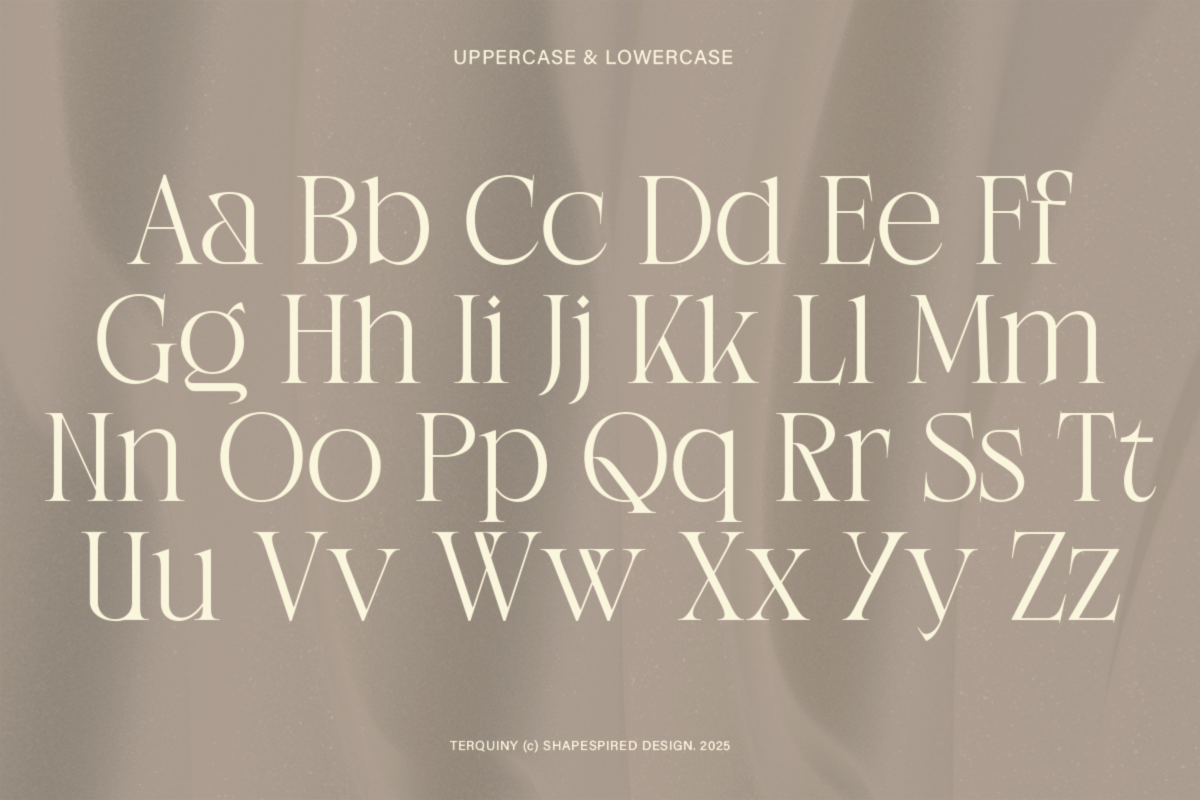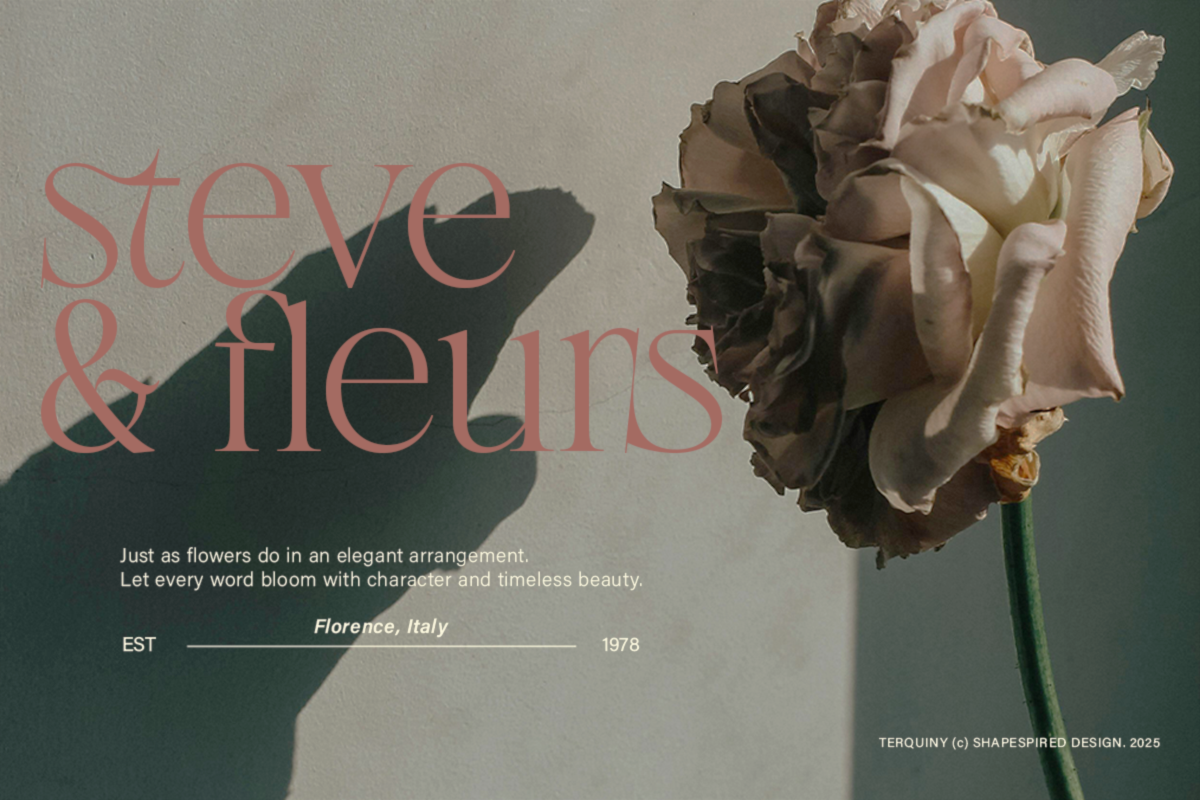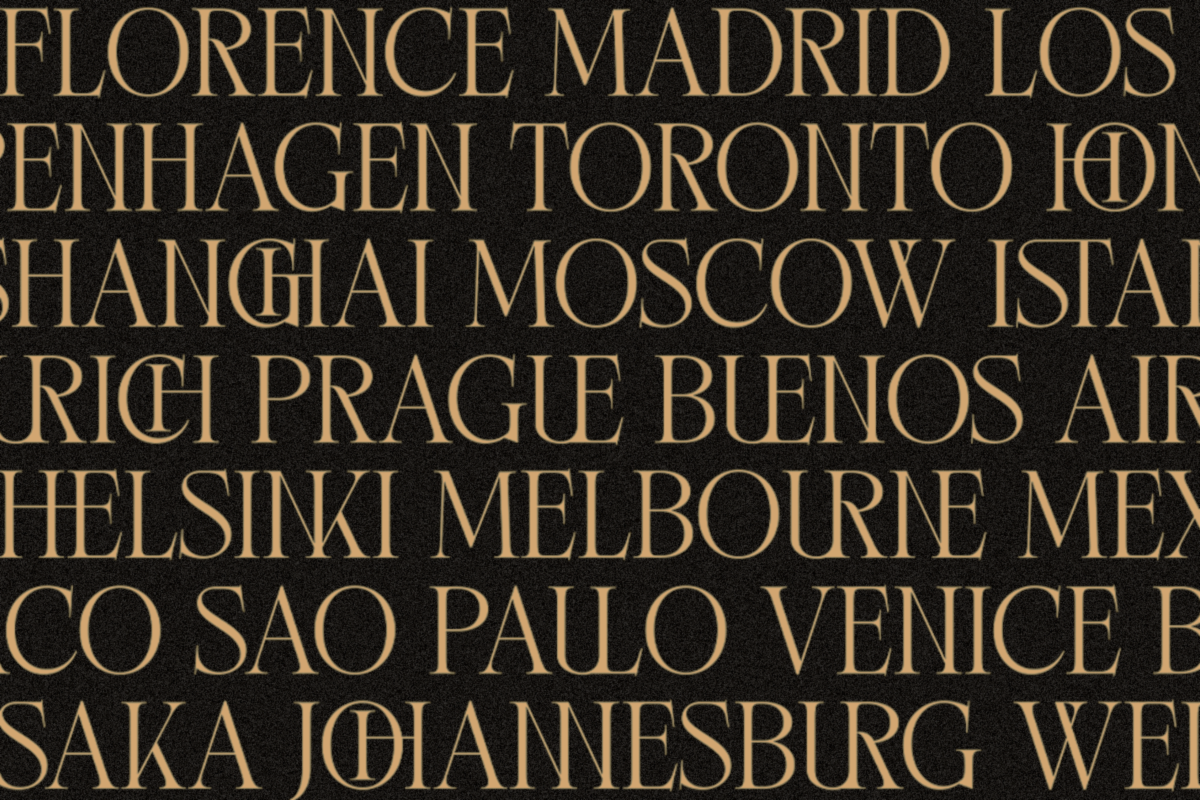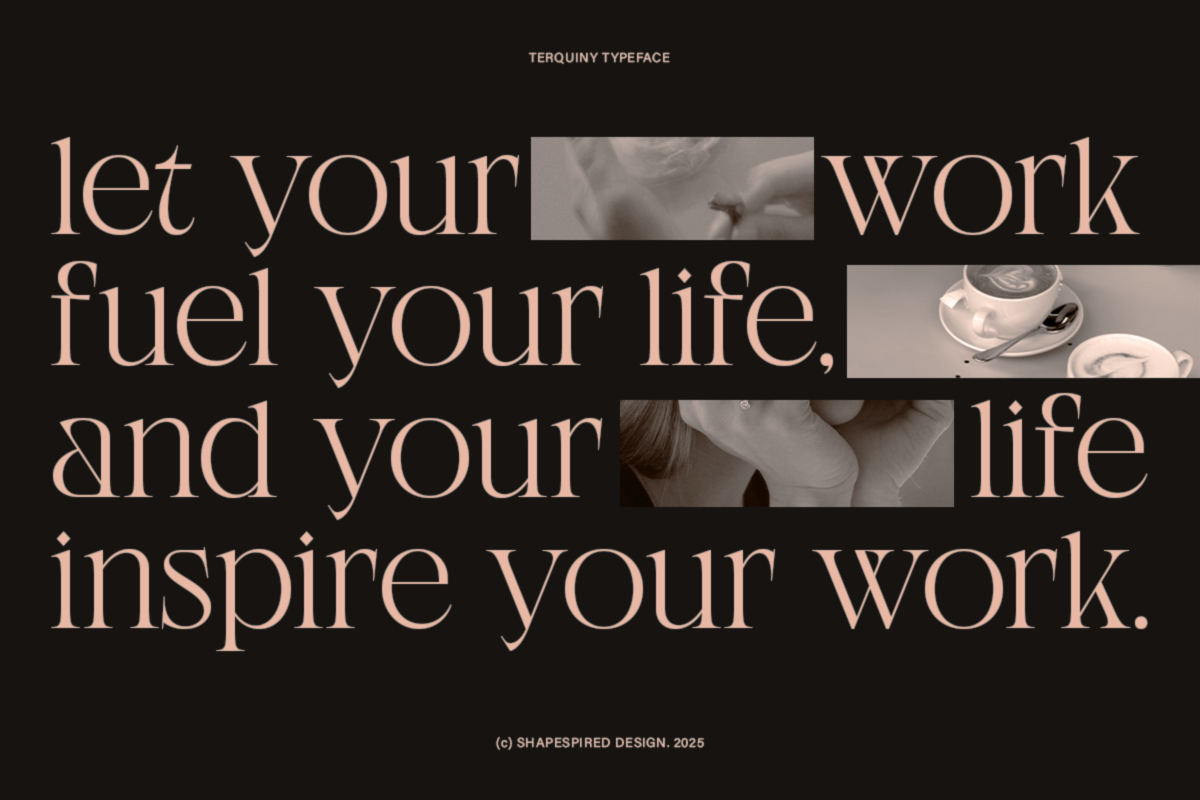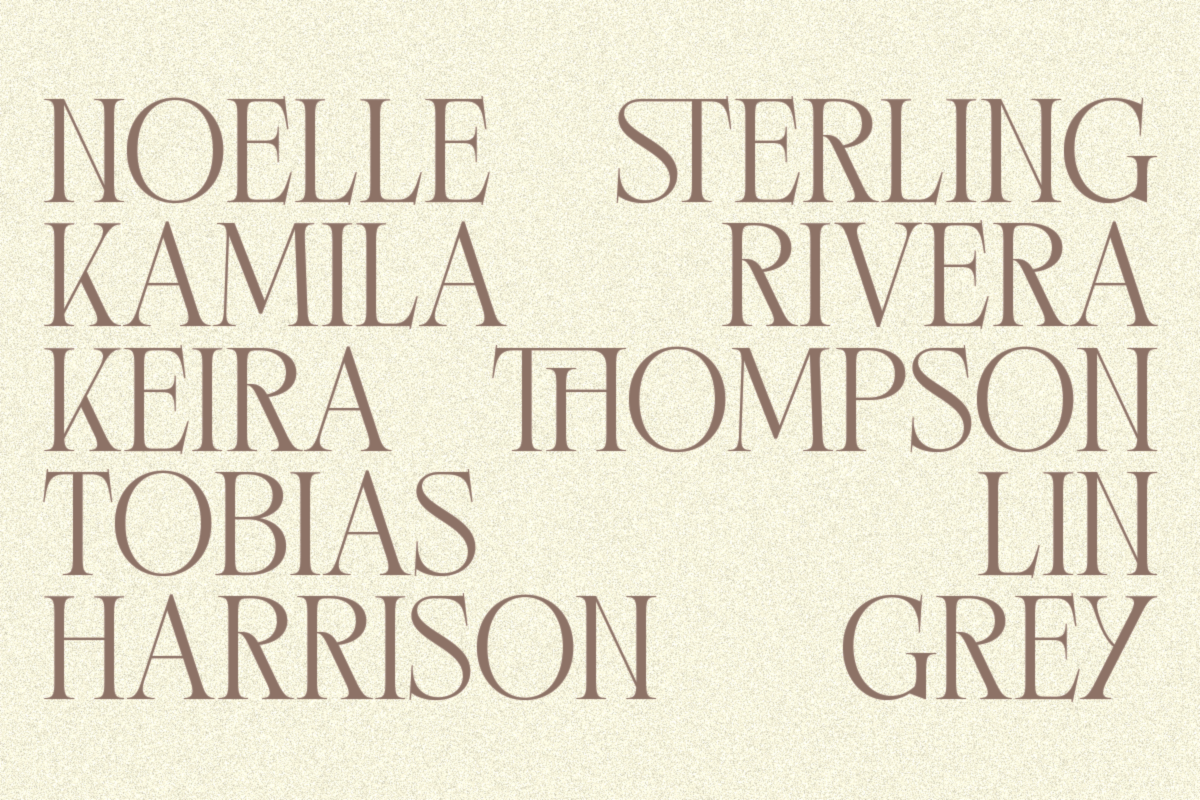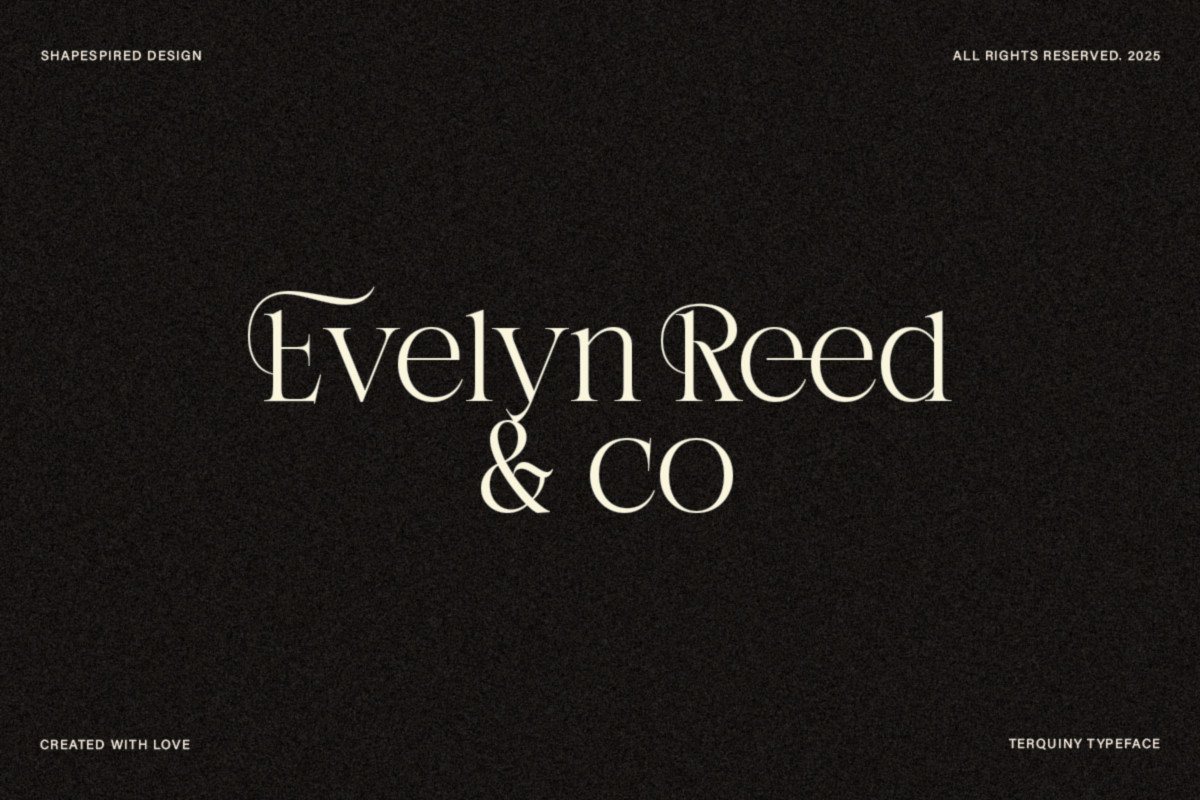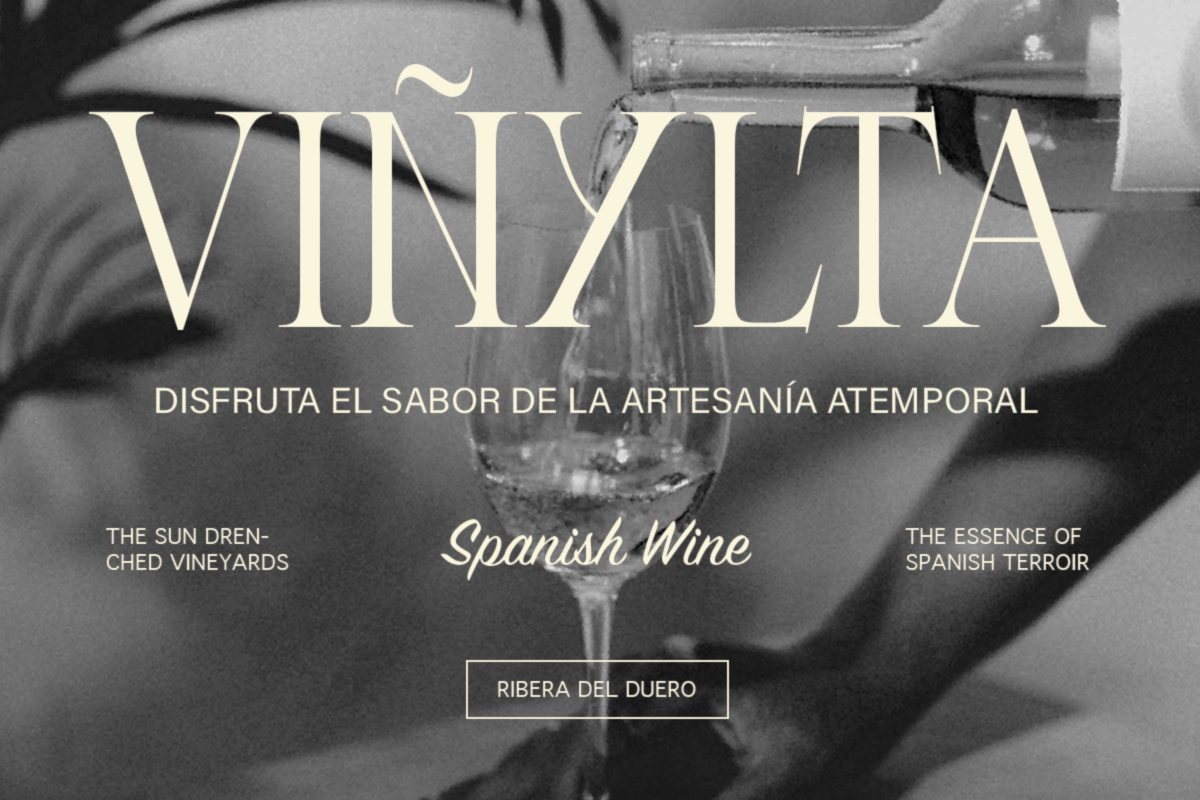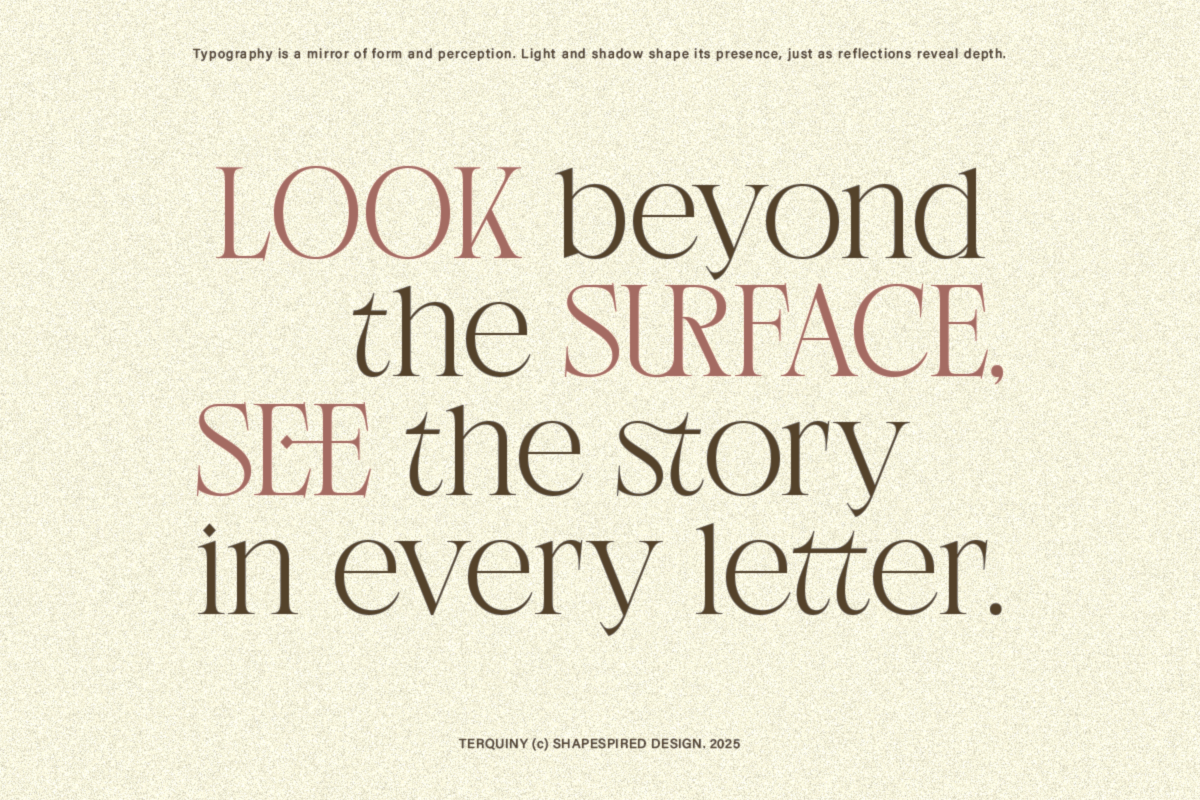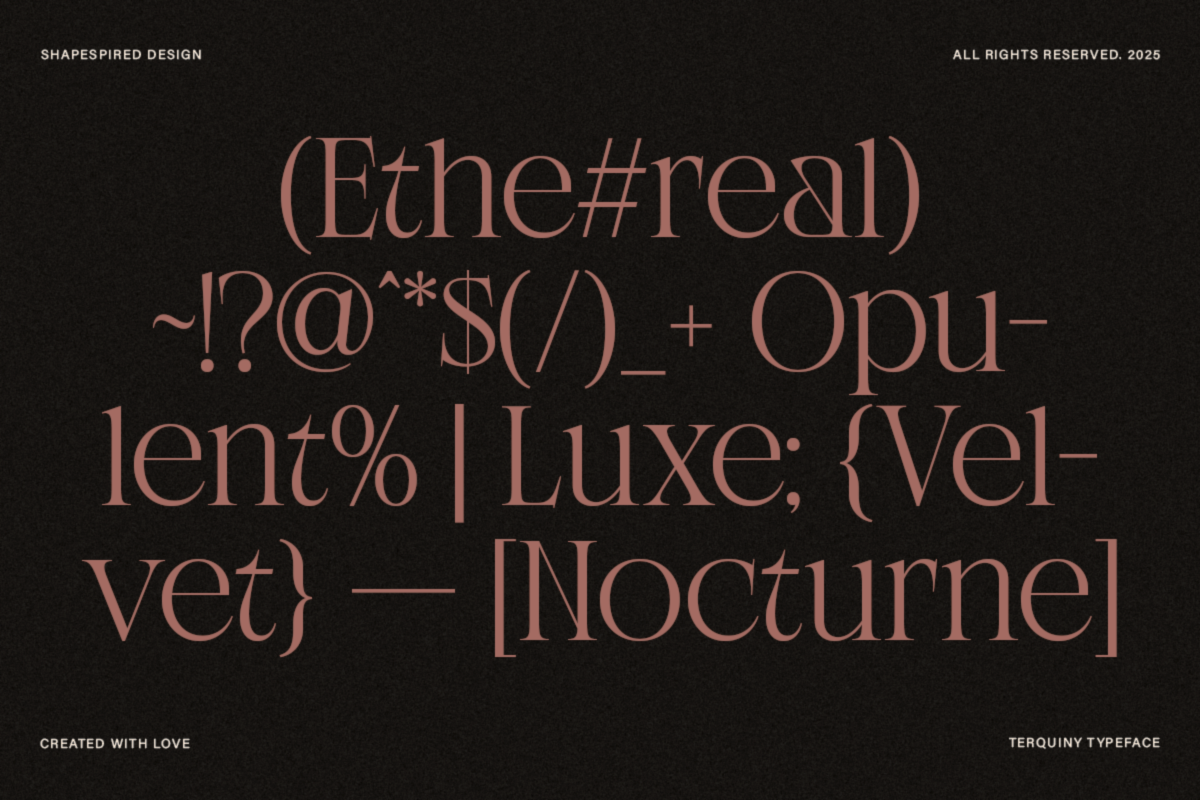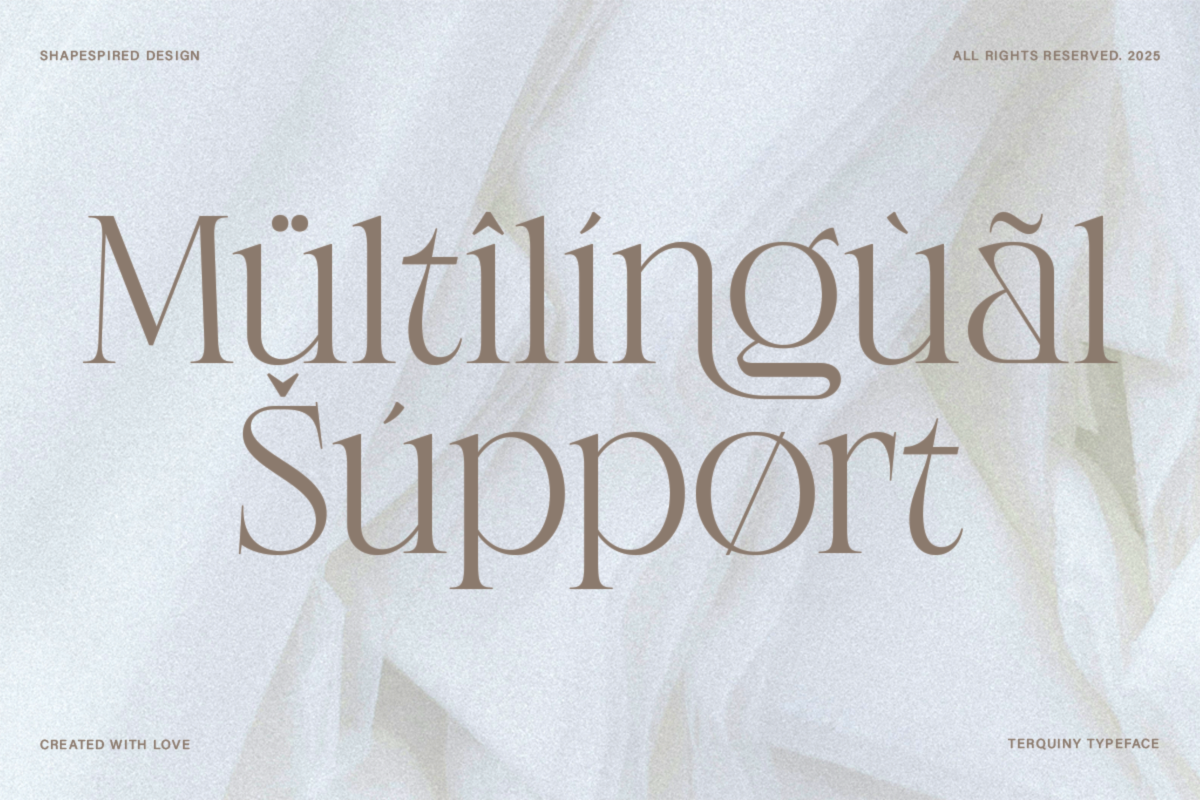
Terquiny - Modern Luxury Serif
Terquiny is a refined luxury serif that balances sharp precision with fluid elegance. Its high-contrast strokes and bespoke ligatures create a sense of sophistication, making it perfect for branding, editorial layouts, and premium design projects. With graceful curves and striking serifs, this typeface embodies timeless beauty and modern refinement, designed to captivate and command attention.
Balancing sharp precision with fluid elegance, Terquiny captivates with its high-contrast strokes and graceful letterforms. Designed to command attention, it seamlessly blends modern refinement with classic beauty, making it the perfect choice for designs that demand sophistication and style.
- 316+ Glyphs
- 80+ Ligatures & Alternates
- Branding & Visual Identity
- Editorial & Magazine Titles
- High-end Packaging
- Fashion & Beauty Design
- Luxury Logos
- Invitations & Stationery
- Poster & Display Typography